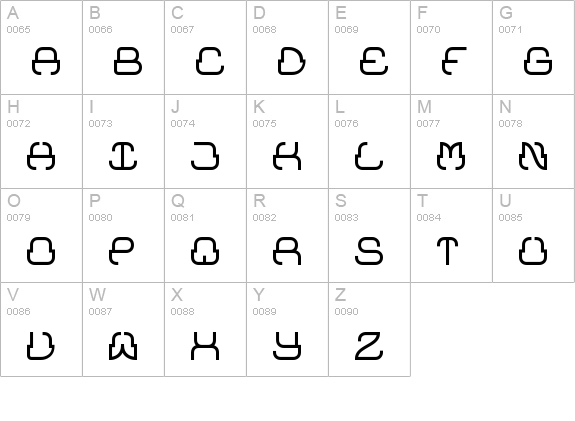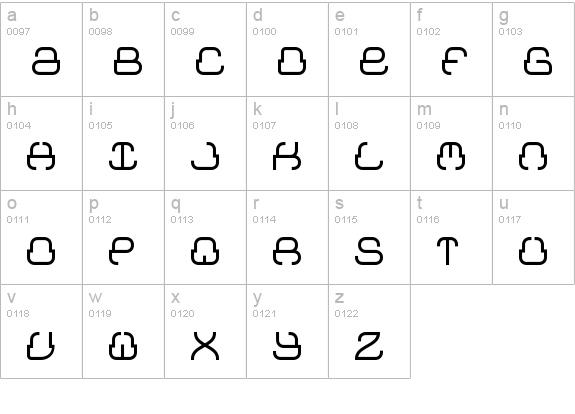
Upraise BRK Font Details
Upraise BRK font is a stunning display font that exudes sophistication and elegance. With its bold and captivating letterforms, this font is perfect for making a statement and commanding attention. What sets Upraise BRK font apart is not only its aesthetic appeal but also its availability for free. Yes, you read that right - this extraordinary font can be downloaded for free at FontsMarket.com. Designed with precision and attention to detail, Upraise BRK font is guaranteed to elevate any design project to new heights. Whether you're creating a logo, a poster, or any other type of visual communication, this font will add a touch of sophistication and professionalism. The clean lines and well-crafted curves of Upraise BRK font make it versatile and suitable for a wide range of design styles. From modern and minimalistic to classic and timeless, this font can adapt effortlessly to any aesthetic. With Upraise BRK font, you have the freedom to express your creativity and bring your vision to life. So why wait? Head over to FontsMarket.com and download this incredible font for free. Take your designs to the next level with Upraise BRK font - the perfect fusion of beauty and accessibility.